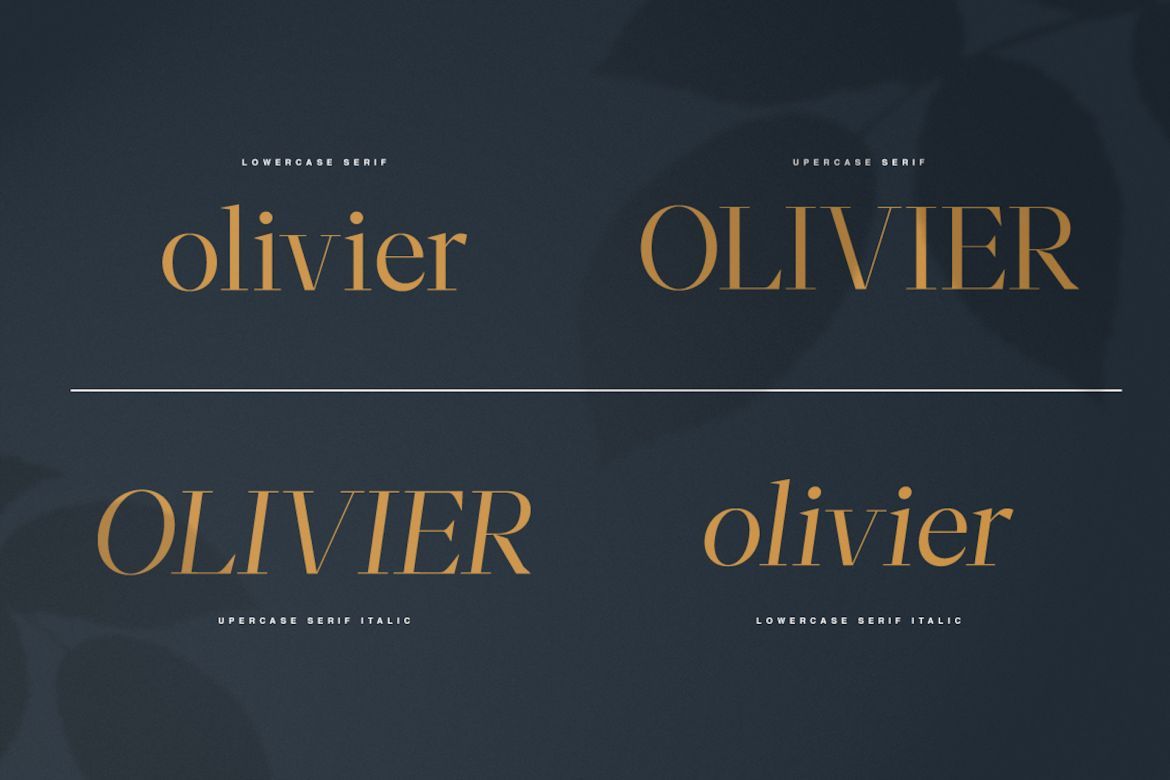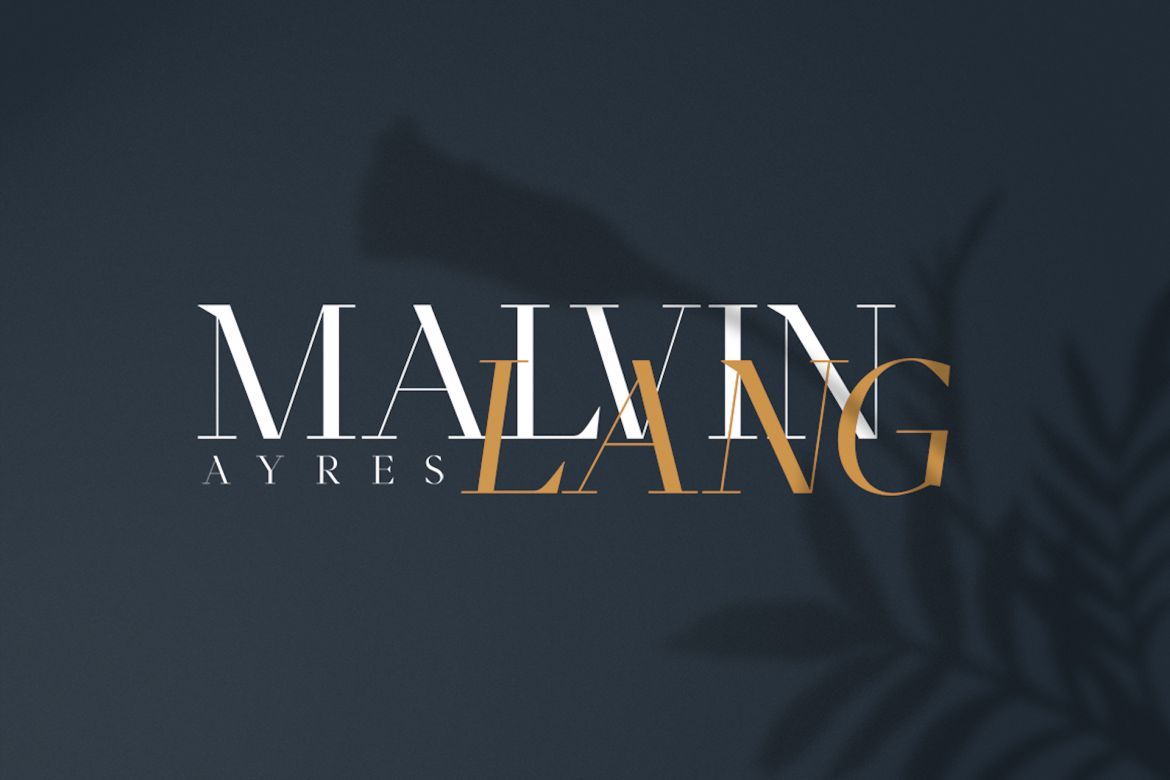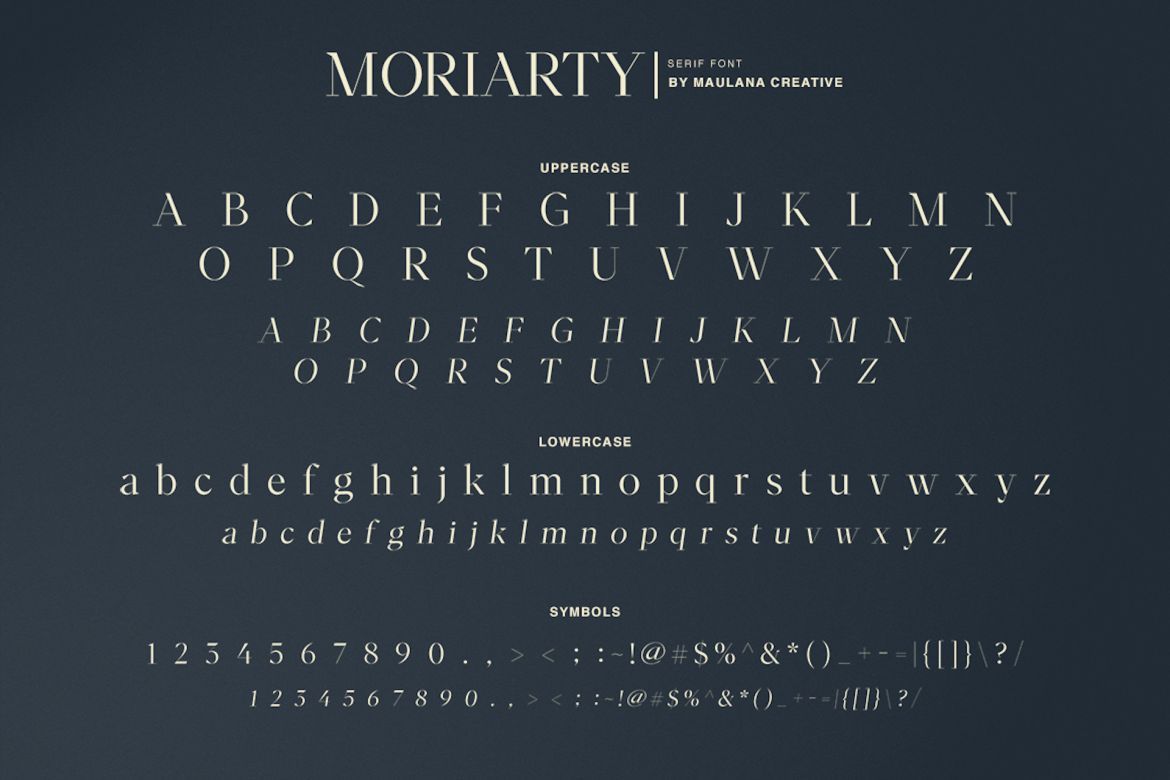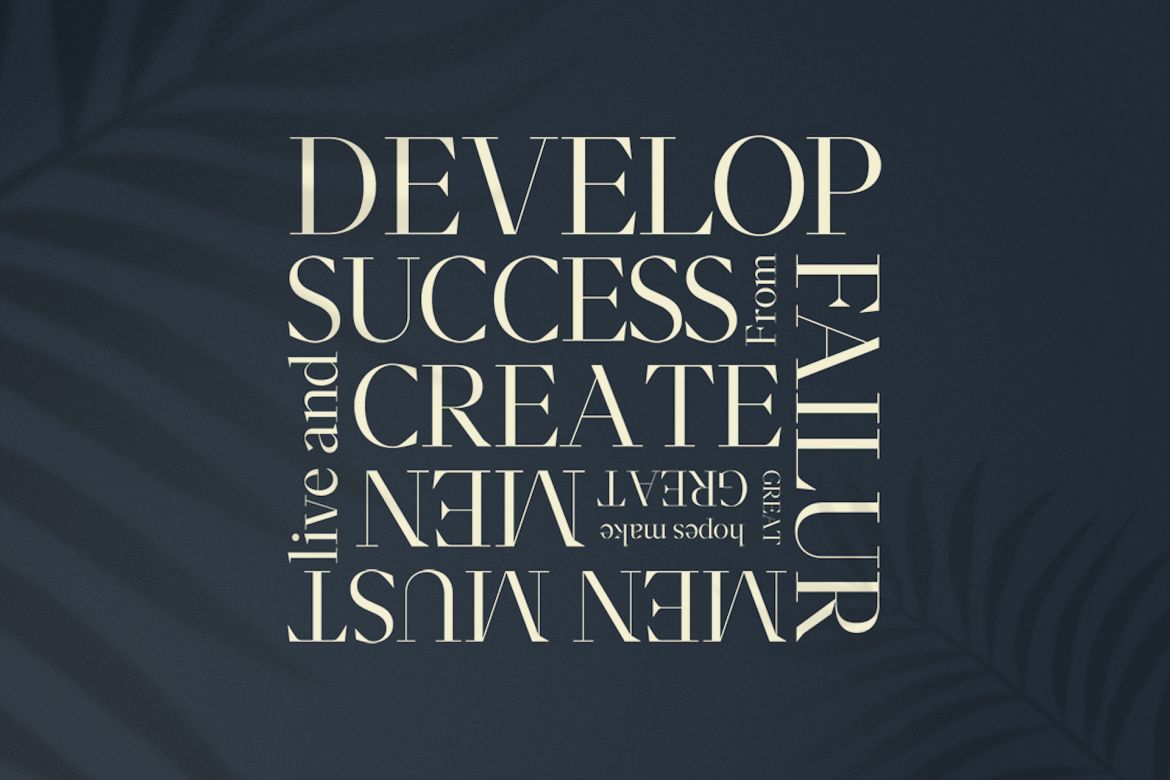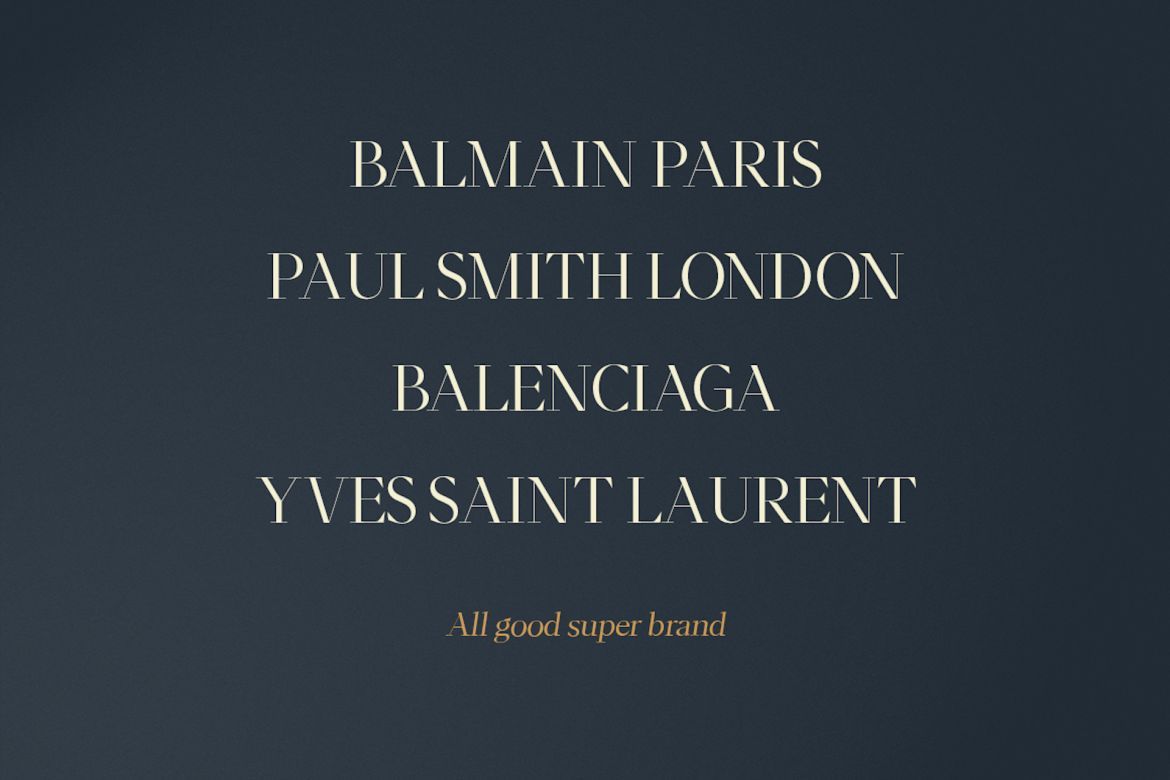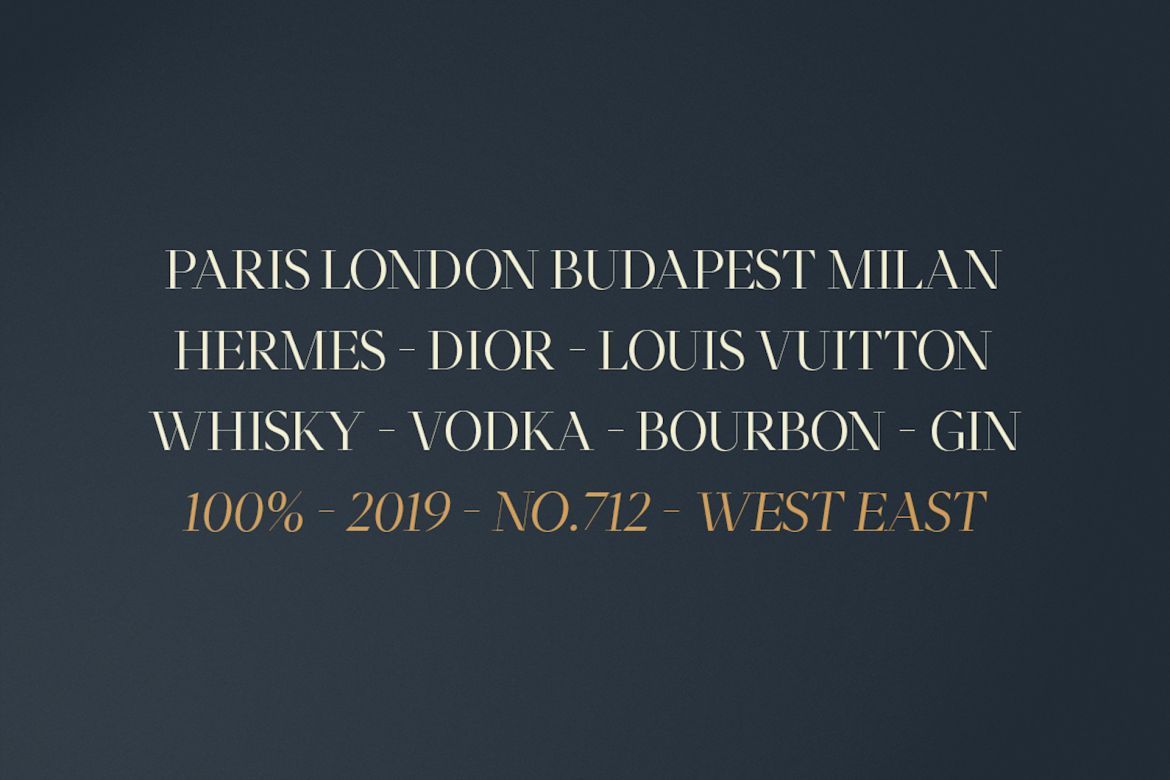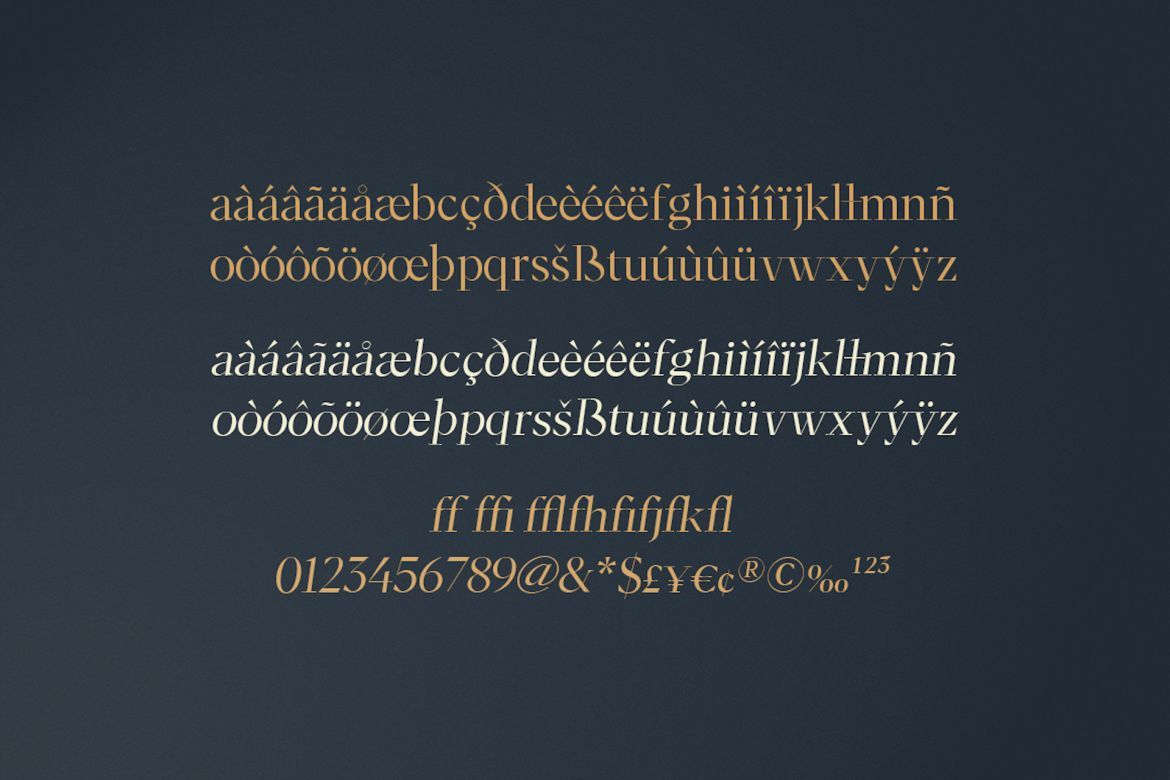
Moriarty Serif Font
Moriarty Serif is a modern casual typeface perfect use for headline, logo, magazine, and any editorial design needs also readable body text.